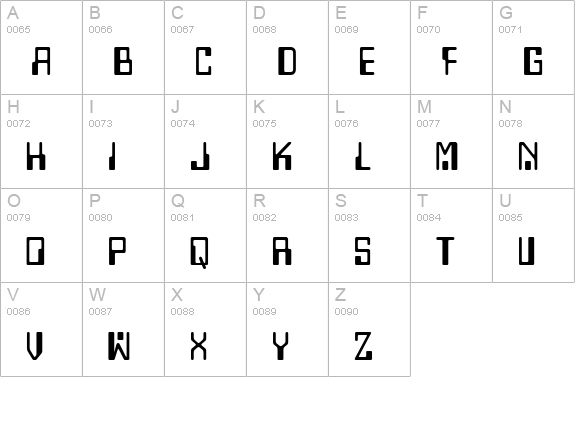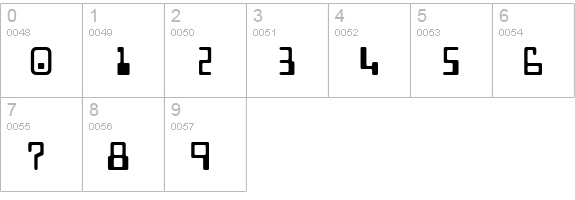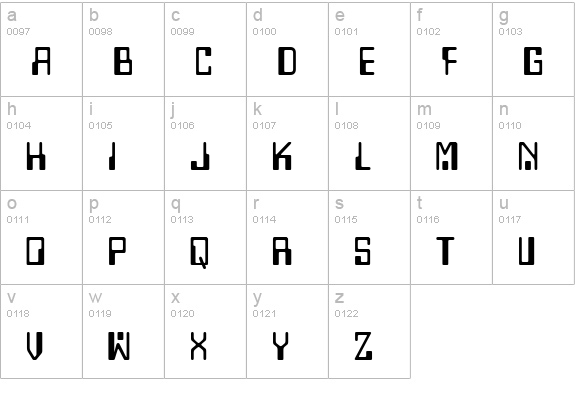
Computer Font Details
Introducing Computer Font - a sleek and modern typeface designed for all your digital needs. This versatile font strikes the perfect balance between professionalism and creativity, making it ideal for a wide range of projects. With its clean lines and sharp edges, Computer Font exudes a futuristic vibe that is sure to captivate your audience. What sets Computer Font apart is not only its striking aesthetics but also its accessibility - it is available for free download at FontsMarket.com. This means that you can easily incorporate this eye-catching font into your designs without breaking the bank. Whether you're working on a website, presentation, or print materials, Computer Font will elevate your content and leave a lasting impression. Don't miss out on the opportunity to enhance your projects with this cutting-edge typeface. Download Computer Font today and unlock a world of creative possibilities!